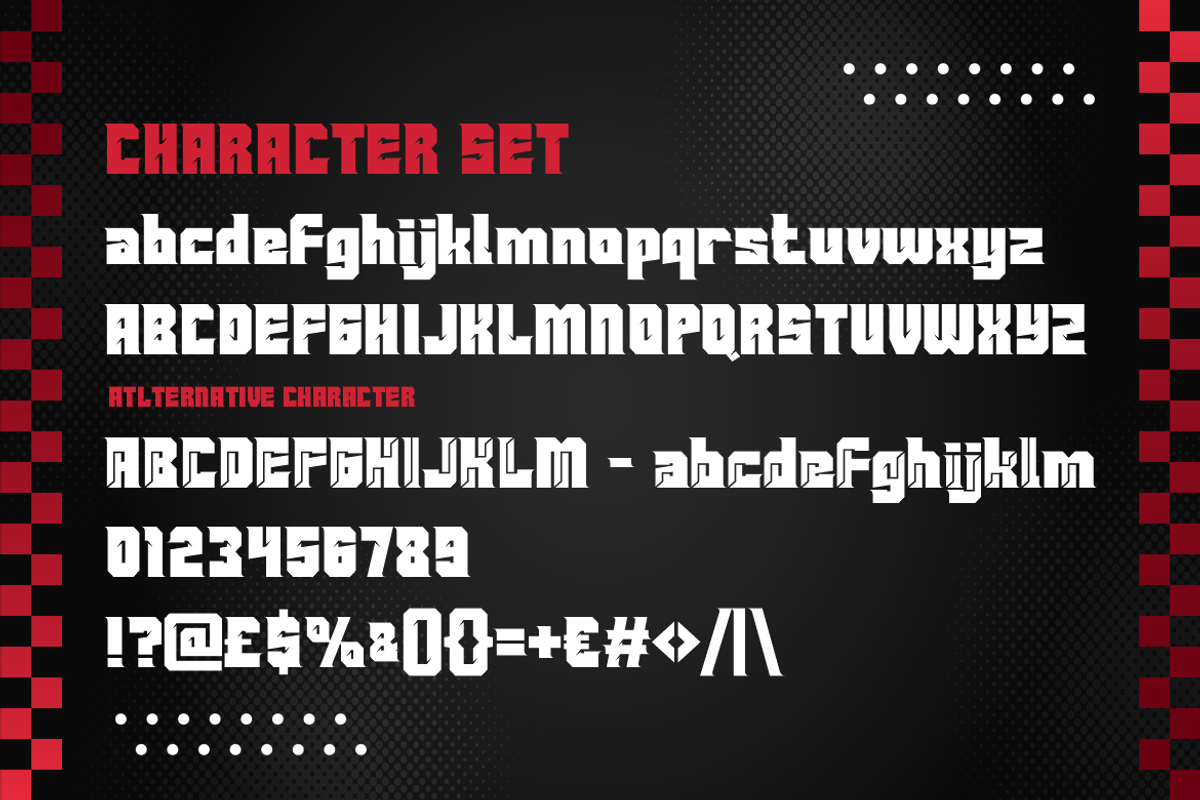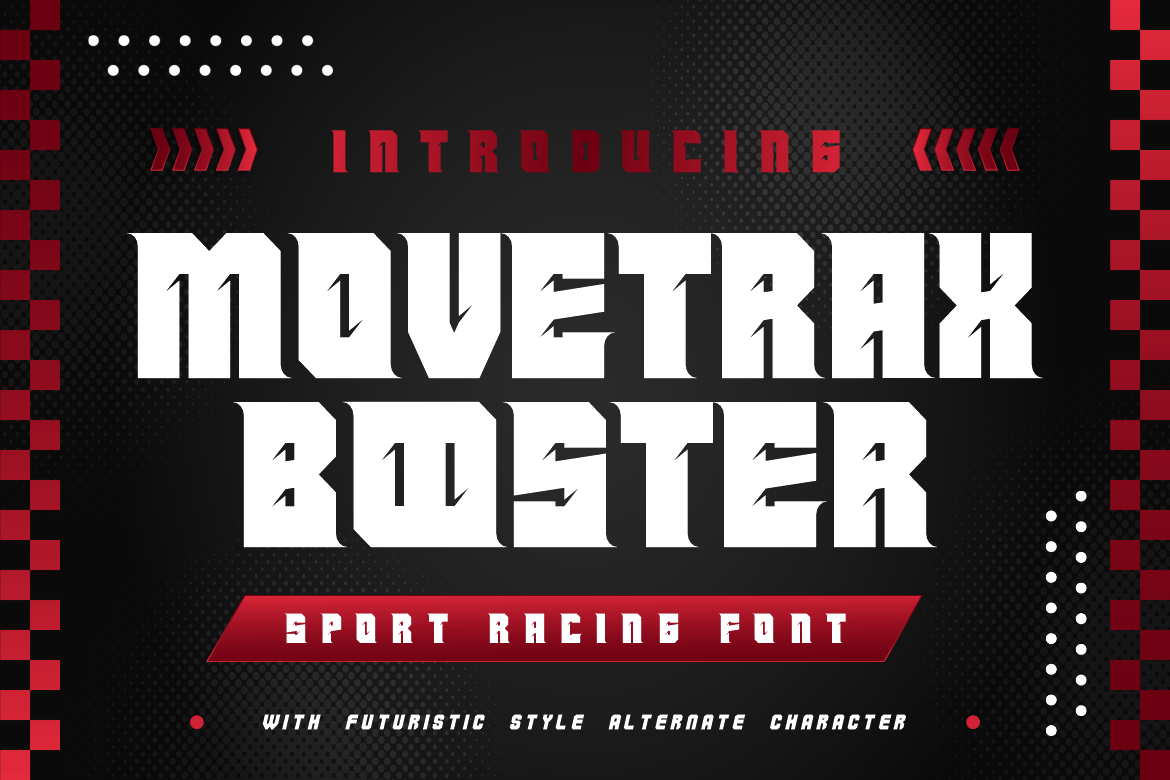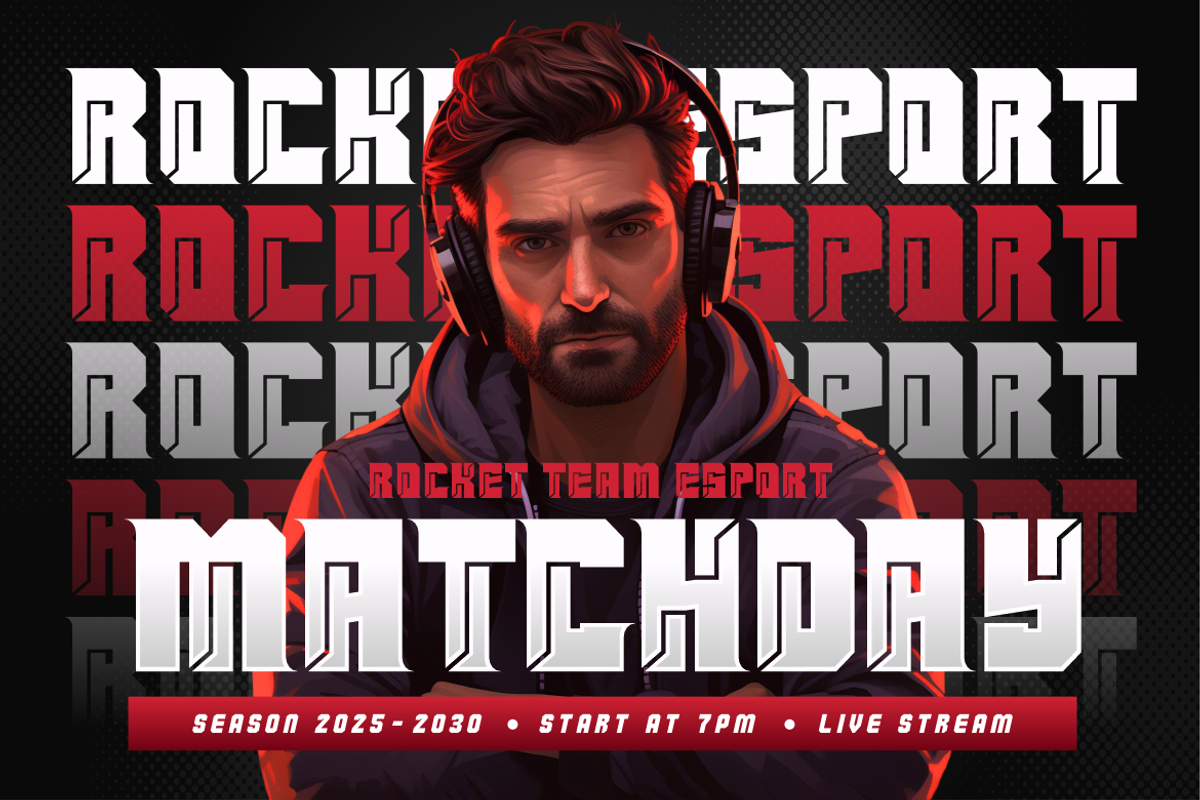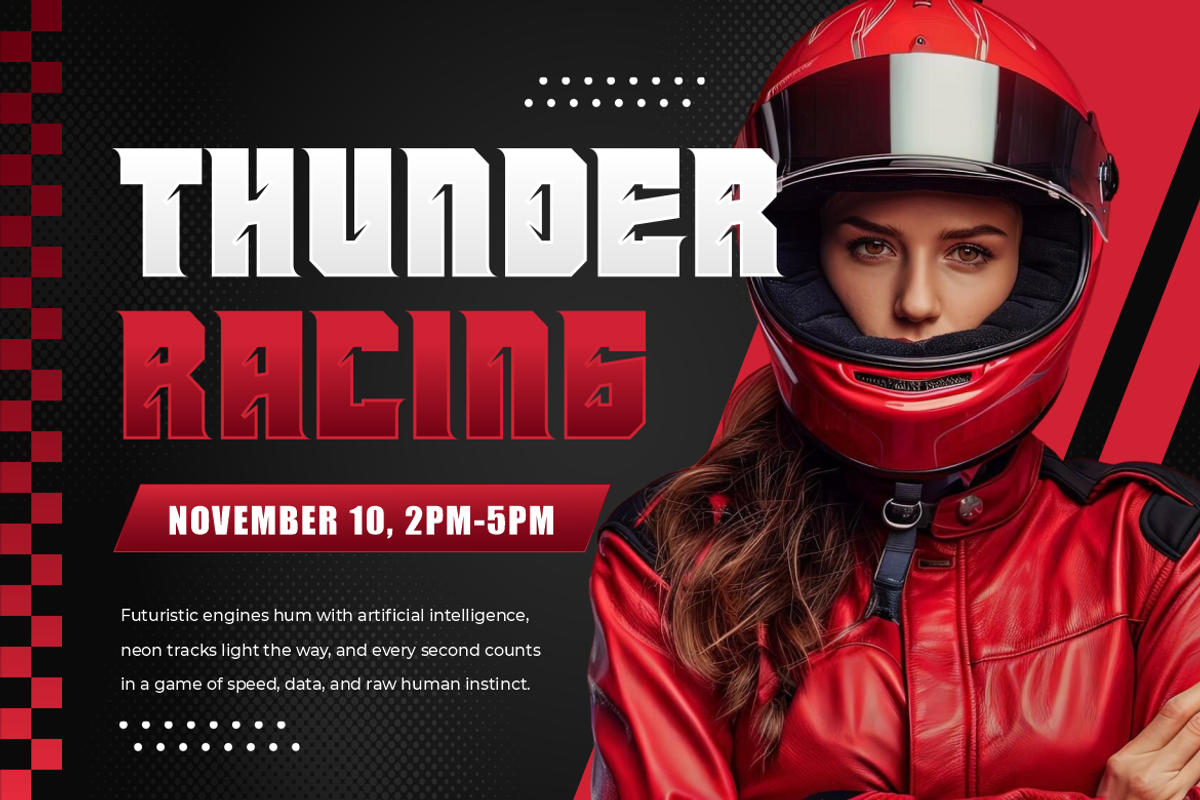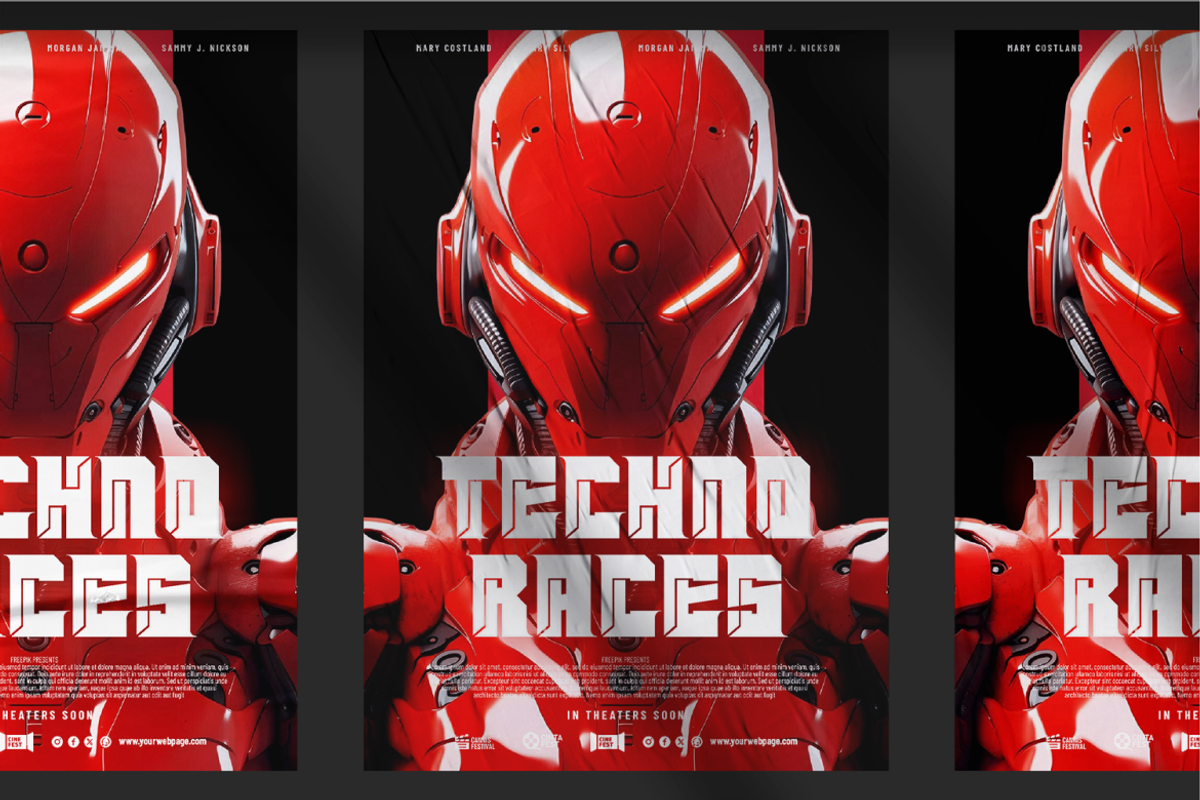
Movetrax Booster - Sport Racing Font
Movetrax Booster - Sport Racing Font is an adrenaline-charged typeface built for maximum impact in the world of speed, energy, and competition. With bold, angular strokes and aggressive, geometric cuts, this font embodies the futuristic essence of motorsport, esports, and cyberpunk themes. The uppercase letters are solid, condensed, and sharp—mirroring the design of high-performance vehicles and racing decals. Alternate characters and stylized cuts infuse each letter with a techno-edge, giving Movetrax Booster a digital, powerful aesthetic perfect for commanding attention on posters, gaming covers, apparel, and packaging.
The font’s dynamic layout, enriched with a blend of modern and retro-futuristic elements, creates a strong visual identity ideal for competitive branding. Its dual-case support, numerals, and punctuation make it highly versatile across print and digital formats. Whether you’re designing a racing event poster, a gamer tag, or a bold sports headline, Movetrax Booster delivers visual intensity and raw speed. Designed with modern branding in mind, this font fuses style and precision, making it a must-have for forward-thinking creatives in sport, tech, and urban genres.